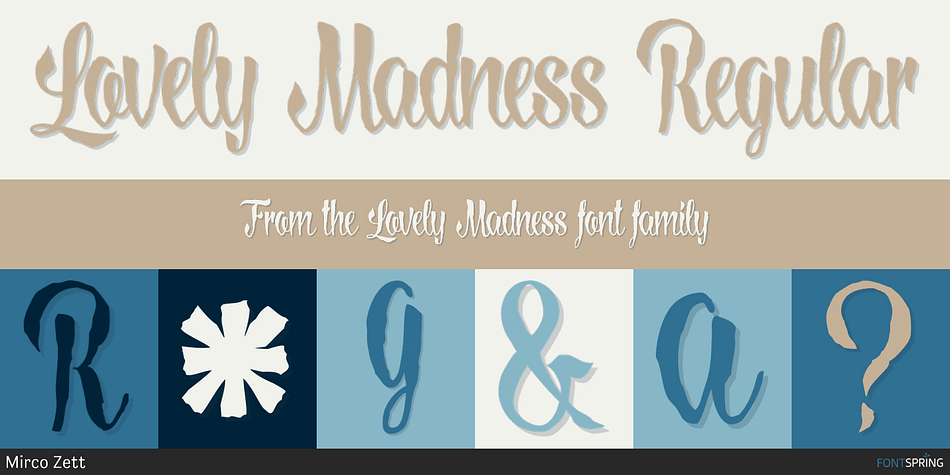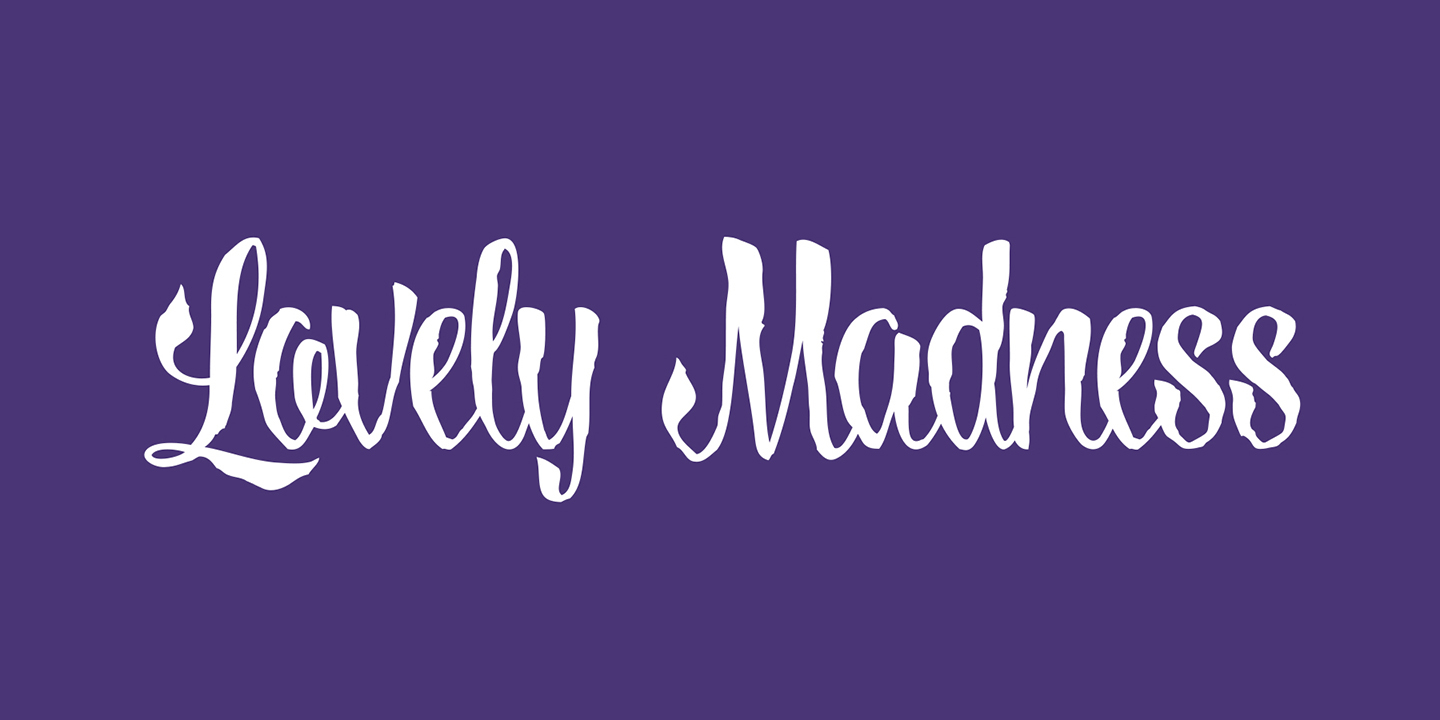
Lovely Madness Regular
Designed by Mirco Zuchowski, Lovely Madness is a brush script font published by Mirco Zett.
Lovely Madness is a modern calligraphy font, which is a hybrid out of various types of calligraphy-based fonts.
Lovely Madness is elegant and at the same time playful, as well as rough and maybe a little bit creepy.
That is why there is a wide application possibility for this font and Lovely Madness allows you to give your calligraphy based creations a new touch.